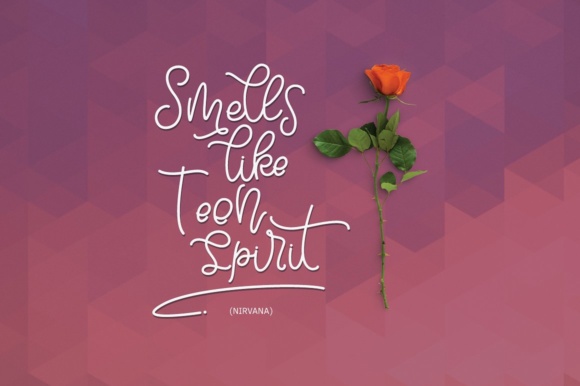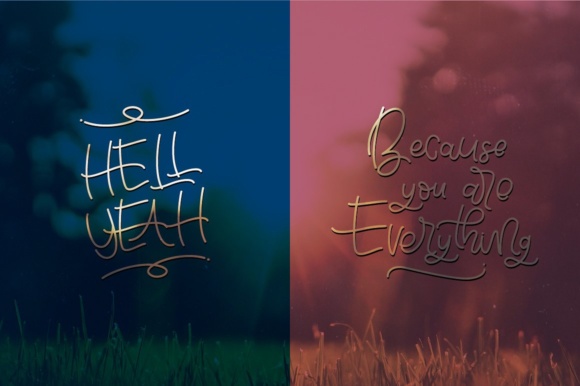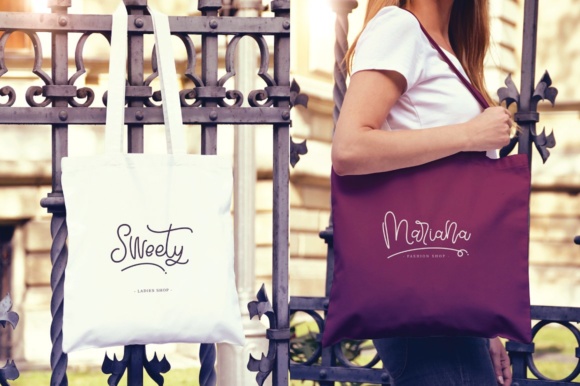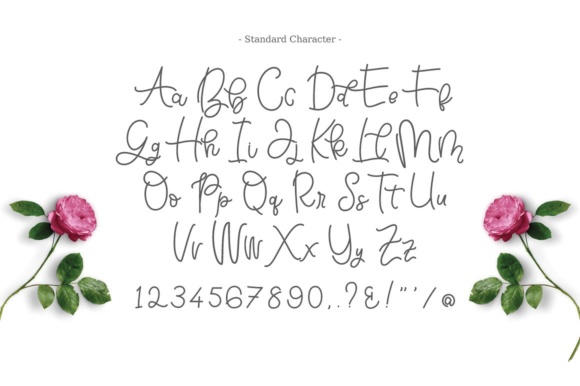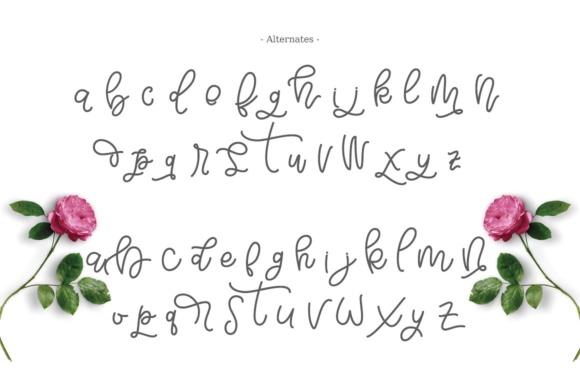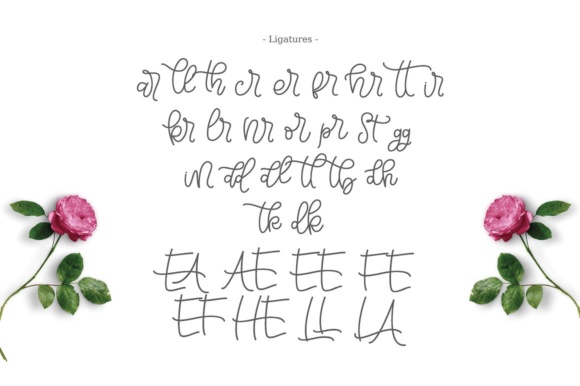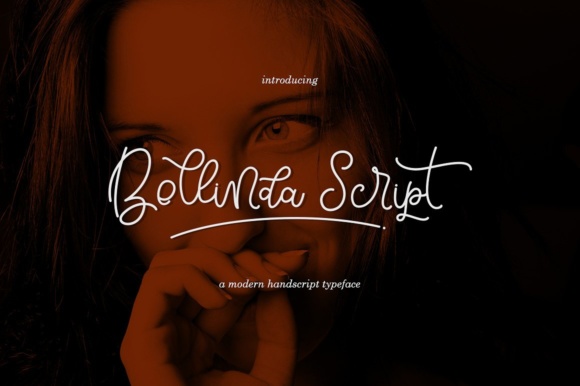
Bellinda Script Font: Add a Personal Touch to Your Designs
The Bellinda Script is a simple, handwritten script that will help you add a personal touch to your designs in an instant. This beautiful font is perfect for designers and crafters looking to add a touch of elegance and sophistication to their work. In this article, we’ll take a closer look at the Bellinda Script Font, its features, and how you can use it to elevate your designs.
What is Bellinda Script Font?
The Bellinda Script Font is a modern, handwritten script font that is designed to look like a personal, cursive script. It’s a simple, yet elegant font that is perfect for a variety of design projects, including wedding invitations, greeting cards, and other paper crafts. The font is highly legible and easy to read, making it perfect for both digital and print designs.
Features of Bellinda Script Font
The Bellinda Script Font has several features that make it a great choice for designers and crafters. Some of its key features include:
- Simple and Elegant Design: The Bellinda Script Font has a simple, yet elegant design that makes it perfect for a variety of design projects.
- Highly Legible: The font is highly legible and easy to read, making it perfect for both digital and print designs.
- Handwritten Look: The font has a handwritten look that gives it a personal touch.
- Versatile: The Bellinda Script Font is versatile and can be used for a variety of design projects, including wedding invitations, greeting cards, and other paper crafts.
How to Use Bellinda Script Font
The Bellinda Script Font is easy to use and can be incorporated into your designs in a few simple steps. Here are some tips on how to use the font:
- Pair it with Other Fonts: The Bellinda Script Font can be paired with other fonts to create a unique and interesting design.
- Use it for Headings and Titles: The font is perfect for headings and titles, and can be used to add a touch of elegance to your designs.
- Add it to Your Digital Designs: The Bellinda Script Font can be used in digital designs, such as social media graphics and blog posts.
- Use it for Paper Crafts: The font is perfect for paper crafts, such as wedding invitations, greeting cards, and other paper projects.
Benefits of Using Bellinda Script Font
The Bellinda Script Font has several benefits that make it a great choice for designers and crafters. Some of its key benefits include:
- Personal Touch: The font adds a personal touch to your designs, making them more unique and interesting.
- Elegant and Sophisticated: The Bellinda Script Font is elegant and sophisticated, making it perfect for designs that require a touch of luxury.
- Easy to Read: The font is highly legible and easy to read, making it perfect for both digital and print designs.
- Versatile: The Bellinda Script Font is versatile and can be used for a variety of design projects.
The Bellinda Script Font is a beautiful, handwritten script font that can add a personal touch to your designs in an instant. Its simple, yet elegant design makes it perfect for a variety of design projects, including wedding invitations, greeting cards, and other paper crafts. With its highly legible and easy-to-read design, the Bellinda Script Font is a great choice for designers and crafters looking to add a touch of elegance and sophistication to their work.